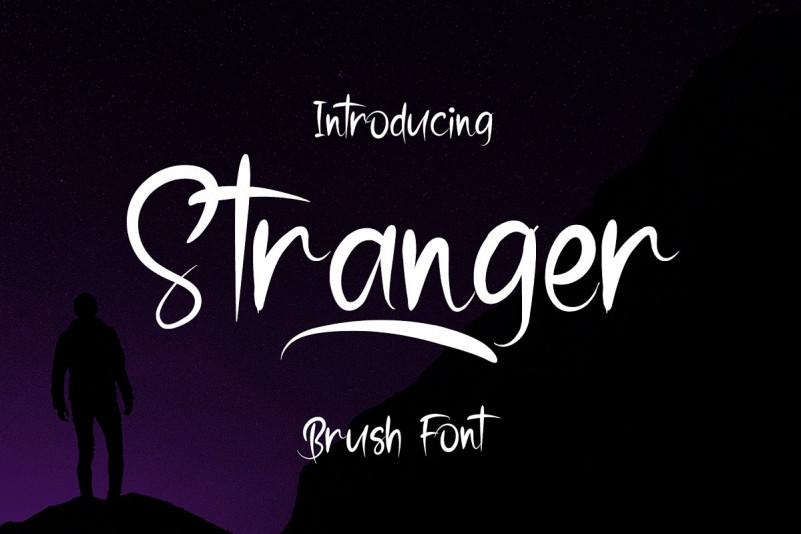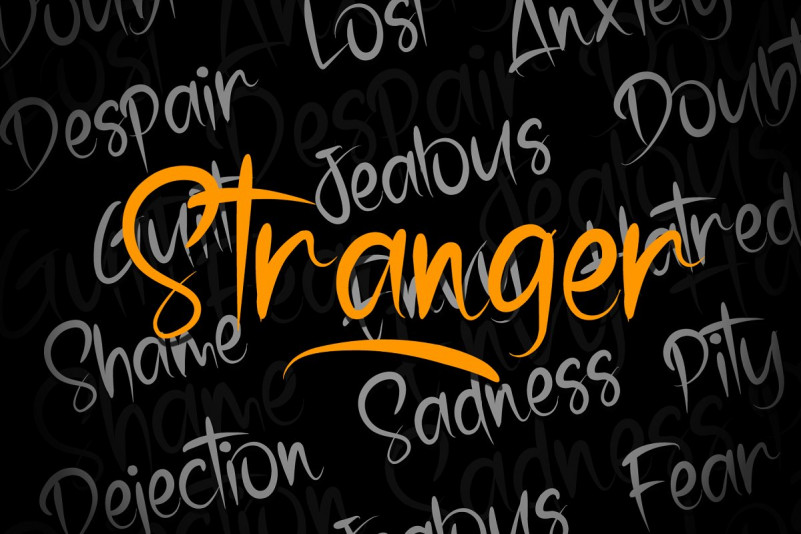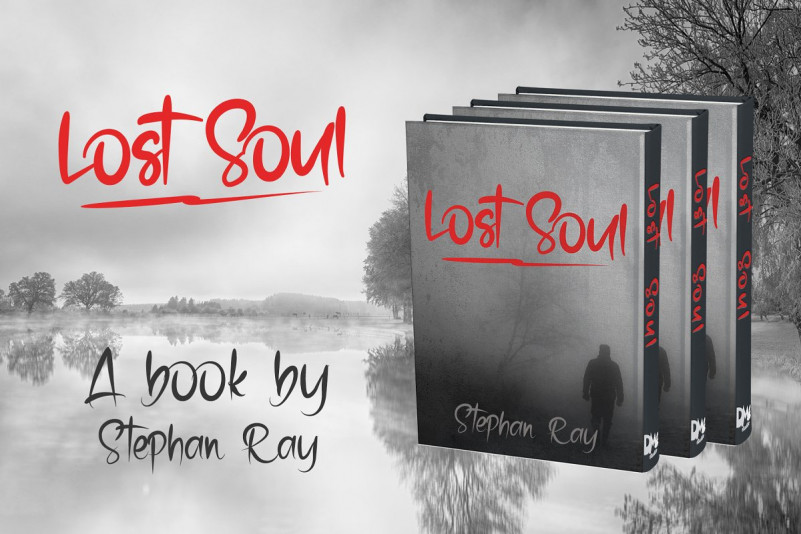
Stranger Brush Font
Stranger Brush Font is a modern handmade brush font by Dm Studio. This is a hand-brush script font inspired by calligraphy and handwriting on the invitation and bridal industry. Stranger Brush is a messy handwritten brush font style The irregular strokes gives the unique and different results in every words. This font is a great choice for your who prepare or need a classy letterform for Logotype, printed quotes, invitations, cards, product packaging, headers, Letterhead, Poster, Apparel Design, Label, and etc.